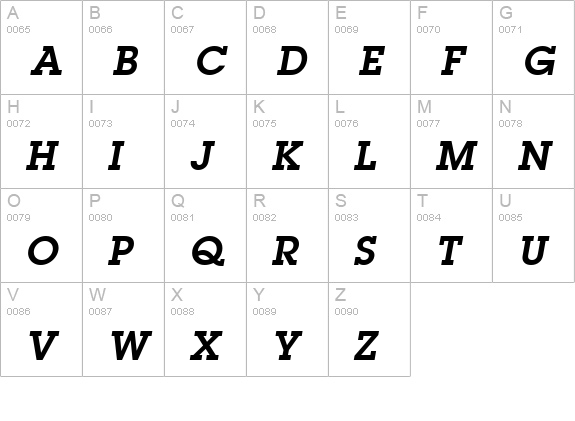
TR McLean Bold Italic Font Details
TR McLean Bold Italic is a strong, high-contrast, italic variant in the TR typeface family \xE2\x80\x94 well suited to headlines, attention-grabbing titles, and strong calls-to-action.
Introducing TR McLean Bold Italic font - a striking and versatile typeface that exudes strength and elegance. This font features bold and italic elements that combine to create a modern and sophisticated look, making it perfect for a wide range of design projects. What sets TR McLean Bold Italic font apart is its unique blend of boldness and style, making it suitable for both headlines and body text. The sharp, clean lines of this font make it highly legible and easy on the eyes, ensuring that your message comes across loud and clear. Best of all, TR McLean Bold Italic font is available for free download at FontsMarket.com. This means that you can enhance your designs with this stunning font without breaking the bank. Don't miss out on this opportunity to elevate your projects with the bold and stylish TR McLean Bold Italic font - download it for free today!